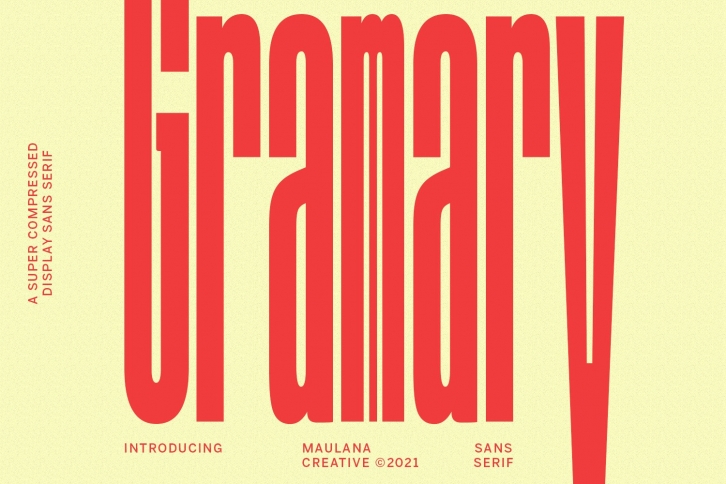
Gramary is a cool, modern and tall sans serif font. It is suitable for designs such as t-shirts, sportswear, logos, advertisements, clothing, and more.